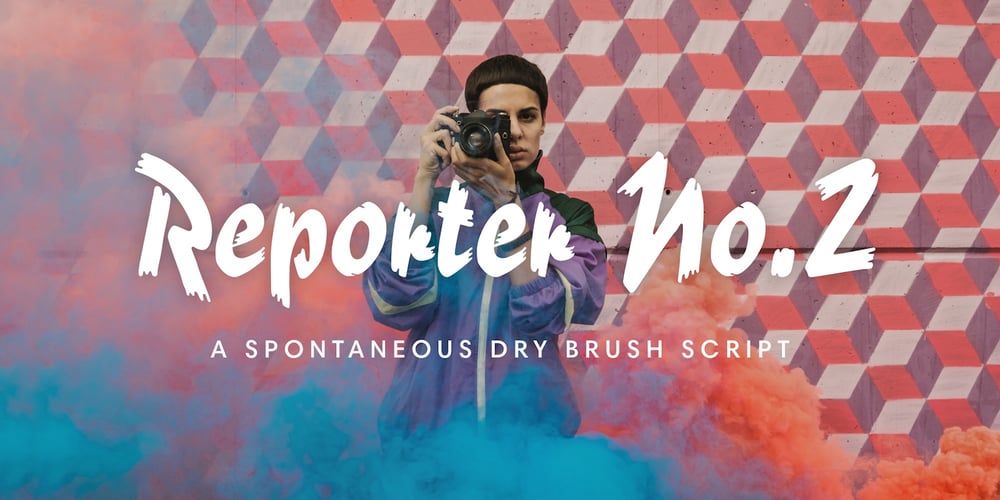
Reporter No. 2
Reporter No. 2 font
Reporter No. 2 Font Family was designed by Carlos Winkow and published by Linotype. Reporter No. 2 contains 1 styles and family package options. Carlos Winkow designed Reporter in 1938 for the Wagner foundry. The strokes of this interesting script have the texture of dry brushwritten letters. The alignment is slightly irregular, giving it a spontaneous feeling. Reporter No. 2 is a slightly simplified version of the original Reporter, without the numerous small white strokes inside its stems, which gave the original a scribbly effect. The font is bold and informal. It works well in signs, posters, and other display uses.